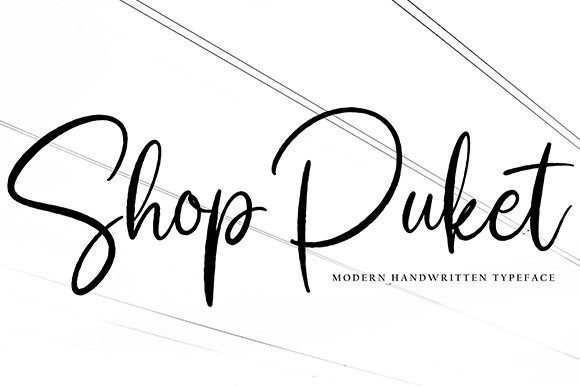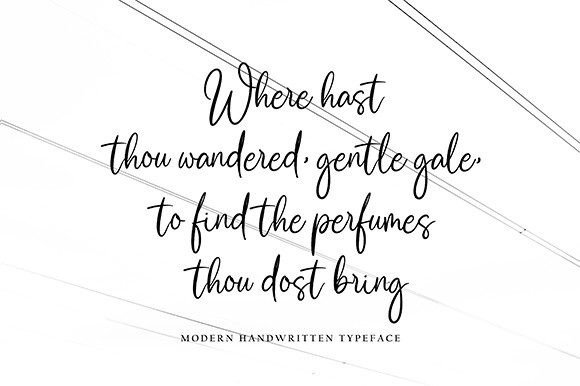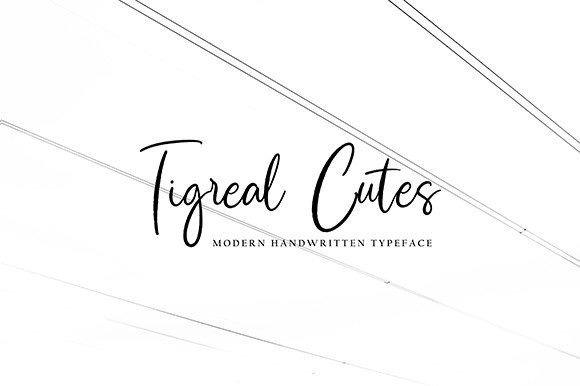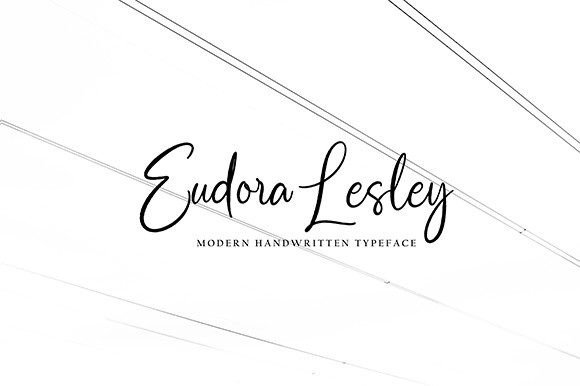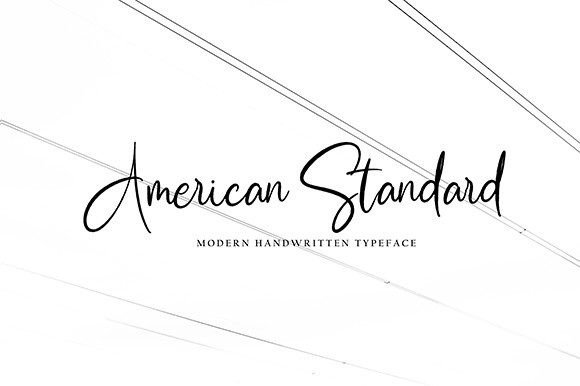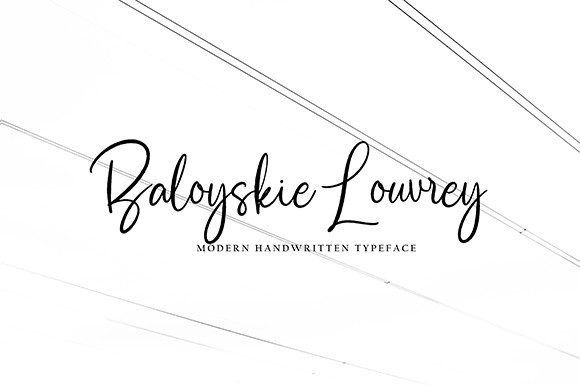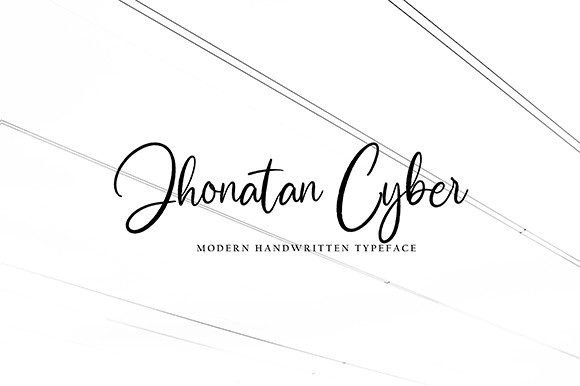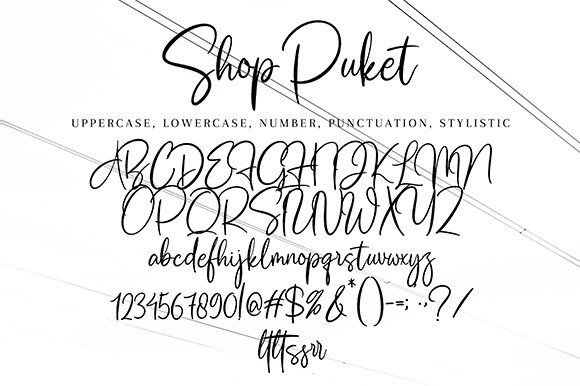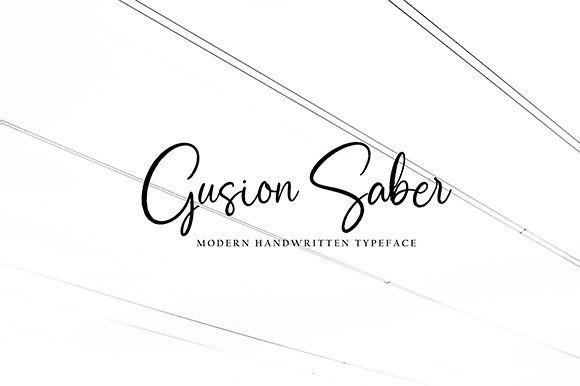
**Shop Puket** is a stylish and elegant handwritten script font that exudes sophistication and grace. Its stunning appearance makes it a perfect choice for a wide range of design projects, including wedding invitations, thank you cards, quotes, greeting cards, logos, business cards, and any other design that benefits from a touch of handwritten charm.
The font’s script style is at the core of its appeal. It imparts your designs with a sense of refinement and artistry, making them stand out and exude elegance. Whether you’re creating luxurious wedding invitations or designing a graceful logo, **Shop Puket** effortlessly integrates into various design contexts.
**Shop Puket** is equally at home in digital designs and printed materials. Whether you’re using it to create a stylish digital logo or incorporating it into the surface of printed business cards, the font maintains its elegance and charm. Its readability ensures that your message is conveyed effectively, while its handwritten style adds an extra layer of visual sophistication.
What sets **Shop Puket** apart is its ability to convey a sense of grace and artistry. It invites your audience to engage with your creative ideas in a way that resonates with its refined and handwritten quality. With **Shop Puket** as part of your creative toolkit, you have the means to infuse a sense of elegance and creativity into your designs, making them memorable and captivating.
**Shop Puket** offers a wide array of customization options, allowing you to fine-tune your text to match your creative vision precisely. This flexibility empowers you to create designs that match your artistic preferences with precision.
In conclusion, **Shop Puket** is more than just a font; it’s a design asset that elevates your creative projects with style, elegance, and a touch of artistry. Embrace its handwritten script style, and let it inspire you to craft designs that exude refinement and creativity. With **Shop Puket** at your disposal, your creative possibilities are expansive, enabling you to create captivating and unforgettable works of art through its stylish and elegantly crafted typography.